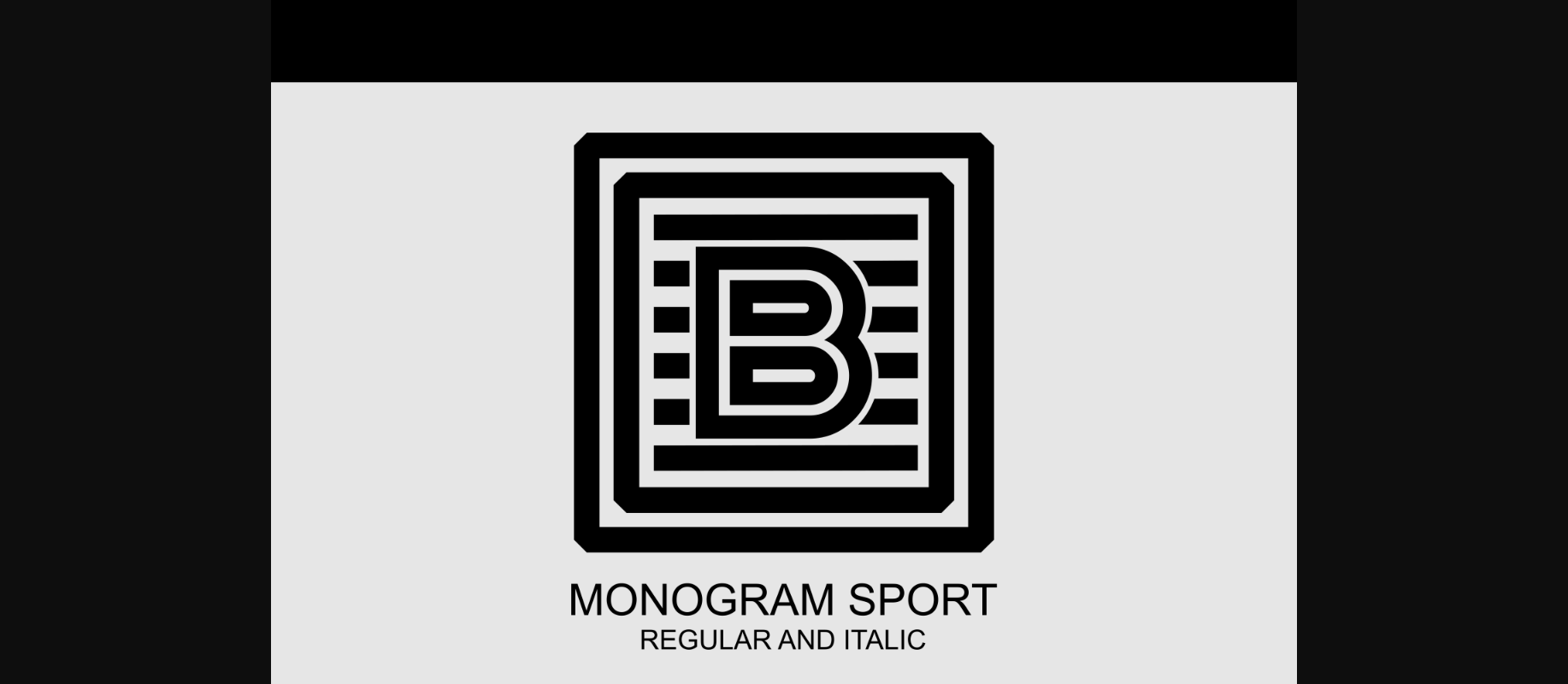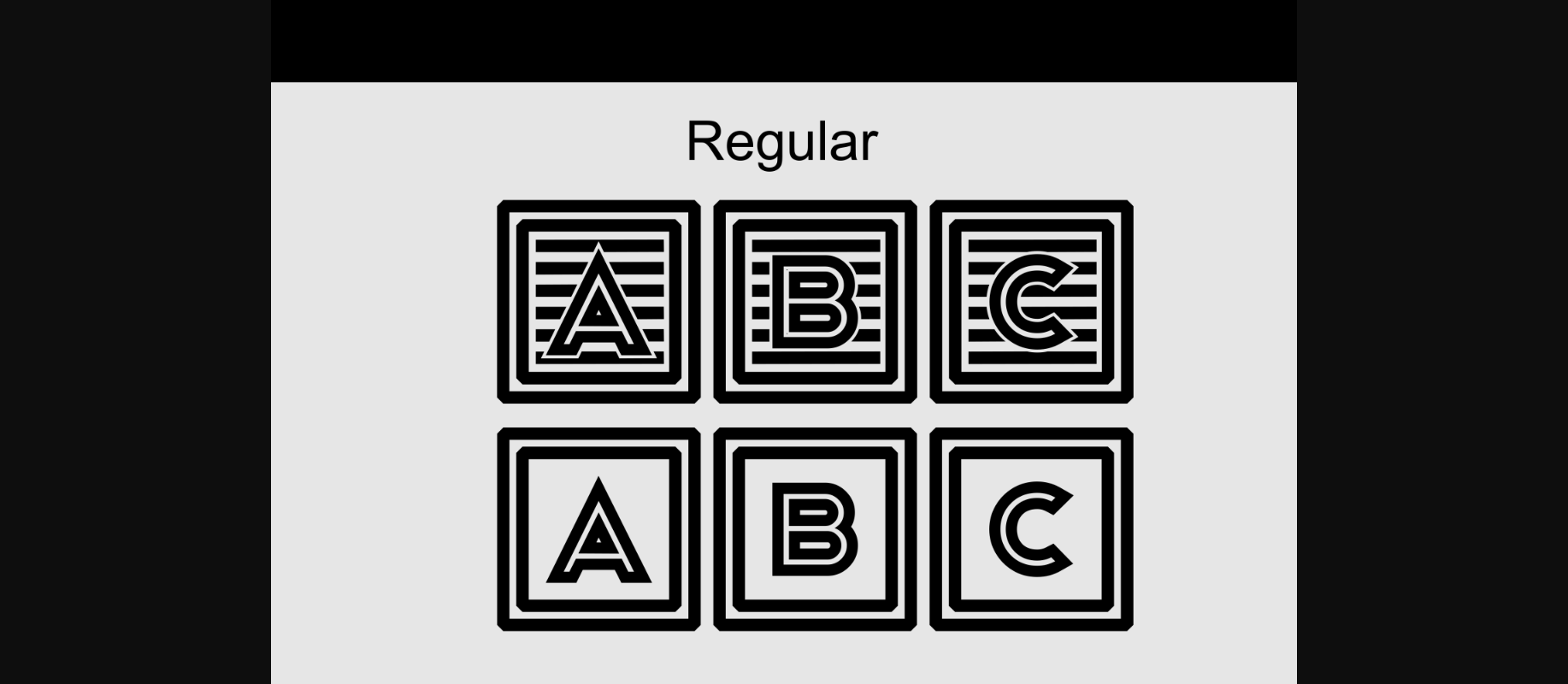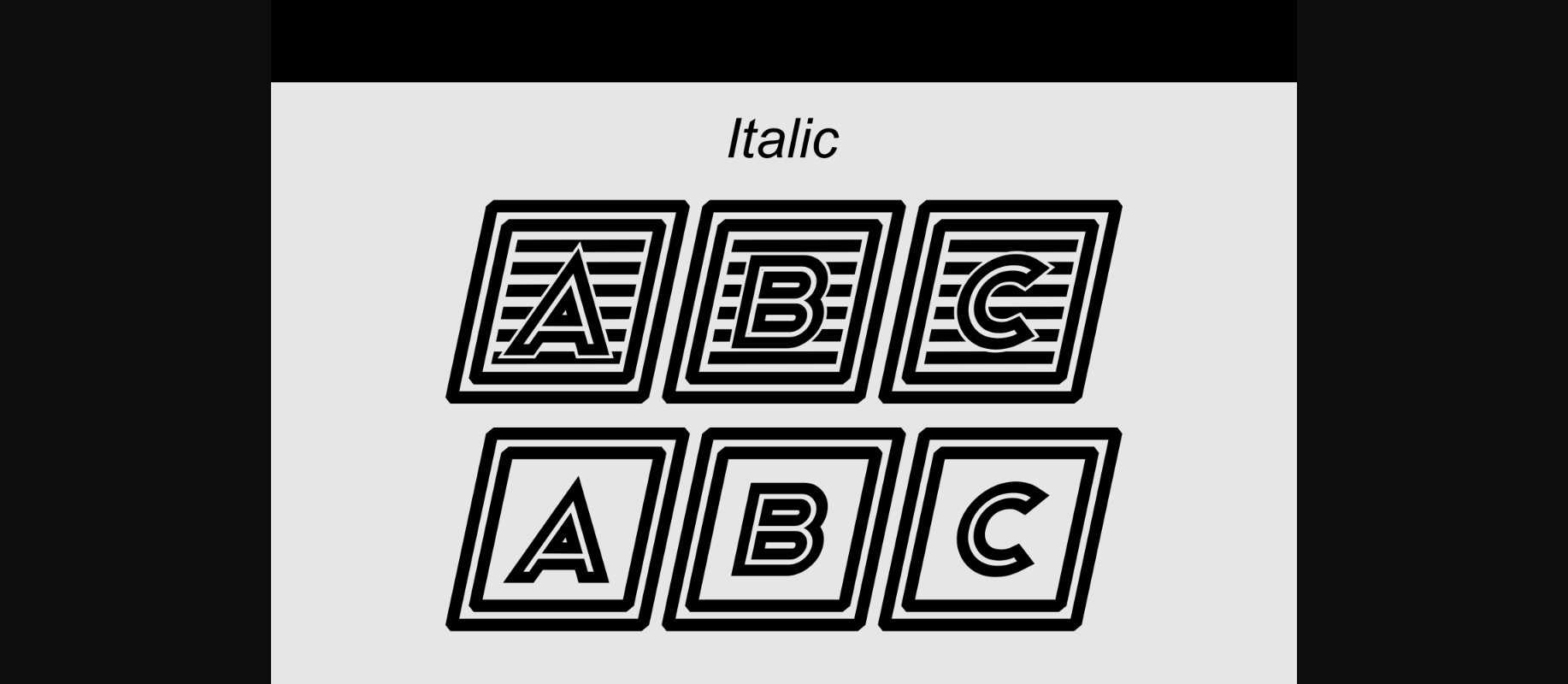
Monogram Sport is an incredibly cool decorative font. Whether you use it for custom designs, DIY crafts, or just any creation that requires a lovely touch, this font will be an amazing choice.